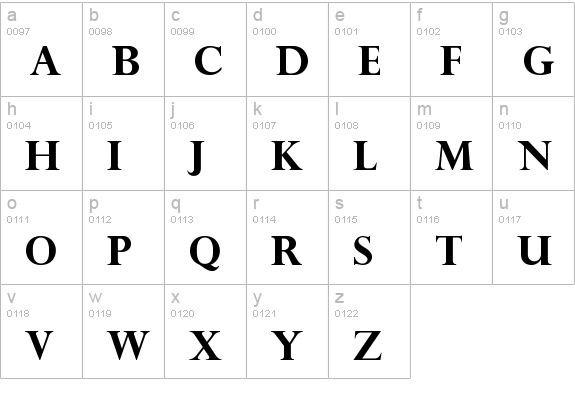
Title Wave Regular Font Details
Title Wave Regular is the standard, neutral variant in the Title typeface family \xE2\x80\x94 well suited to general body text, paragraphs, and standard typographic work.
Title Wave Regular is a stunning and versatile font that will make any project stand out. This font features a unique wave-like design that adds a touch of creativity and elegance to any text. With its clean lines and smooth curves, Title Wave Regular is perfect for a variety of design projects, including logos, branding, posters, packaging, and more. Its legibility and readability make it suitable for both headings and body text. One of the best features of Title Wave Regular is that it is completely free. That's right, you can download this font without spending a dime! It is freely available to download at FontsMarket.com, a trusted source for high-quality fonts. Whether you're a professional designer or a hobbyist, Title Wave Regular is a must-have font in your collection. Its versatility and unique design will add a touch of style to any project, and the fact that it is free makes it even more appealing. Don't miss out on the opportunity to enhance your designs with Title Wave Regular. Download it for free today at FontsMarket.com and unleash your creativity!